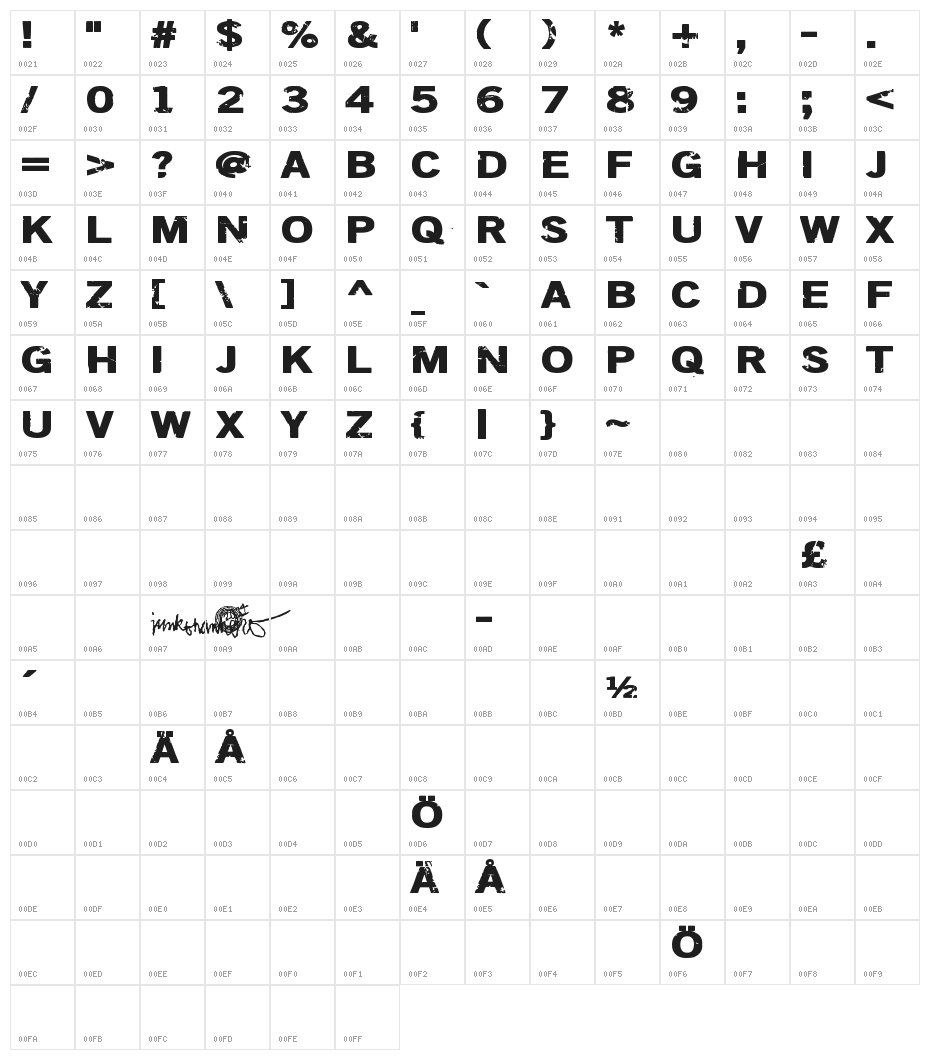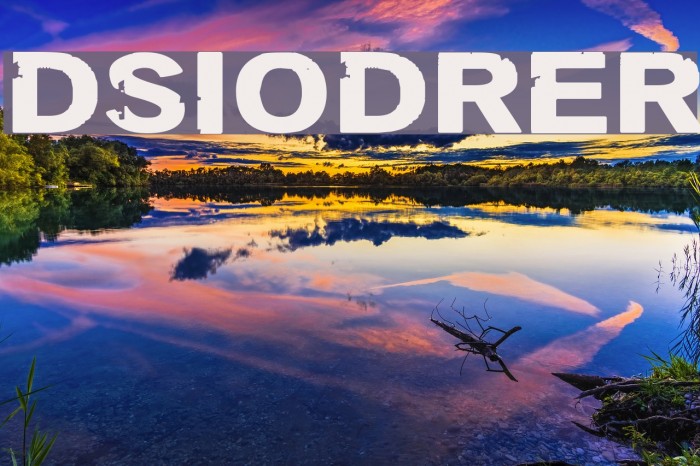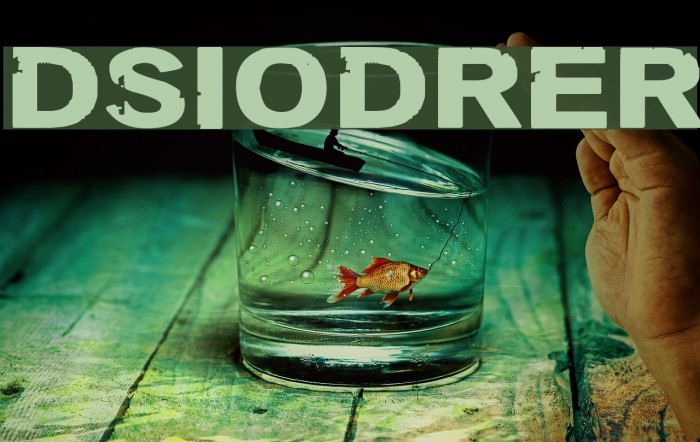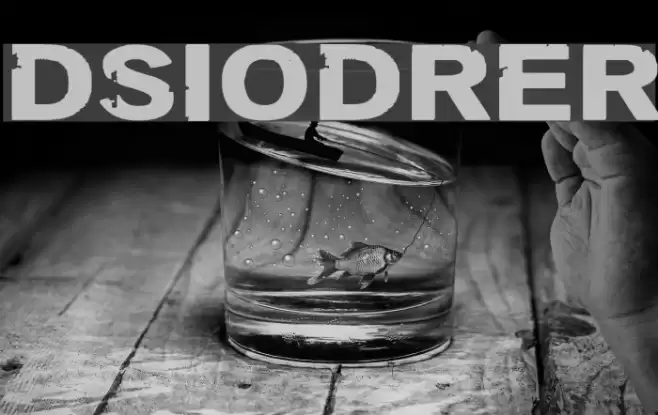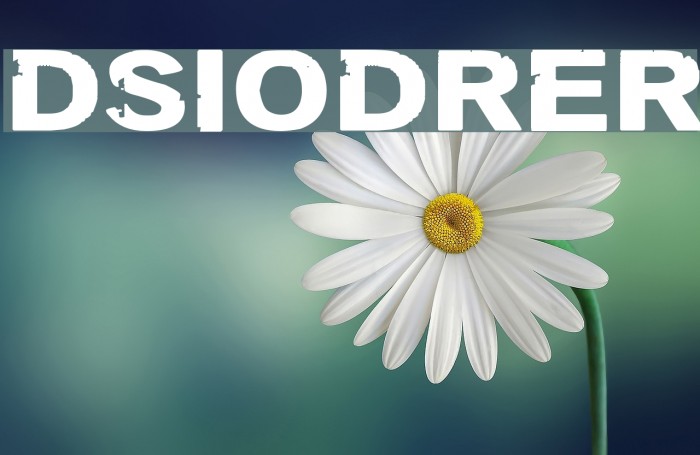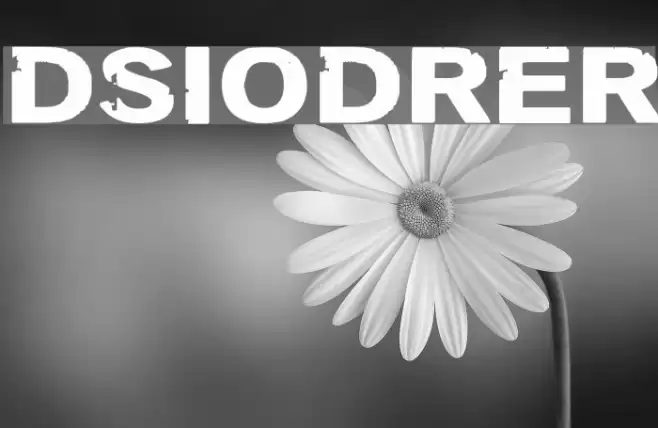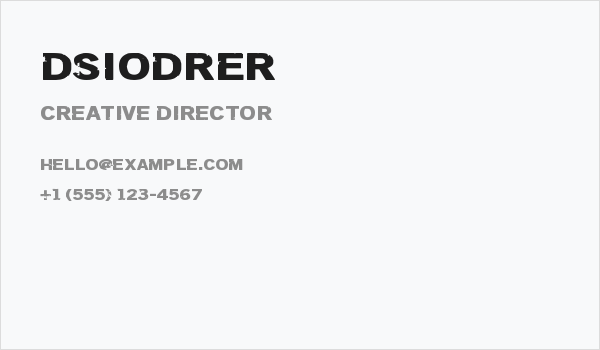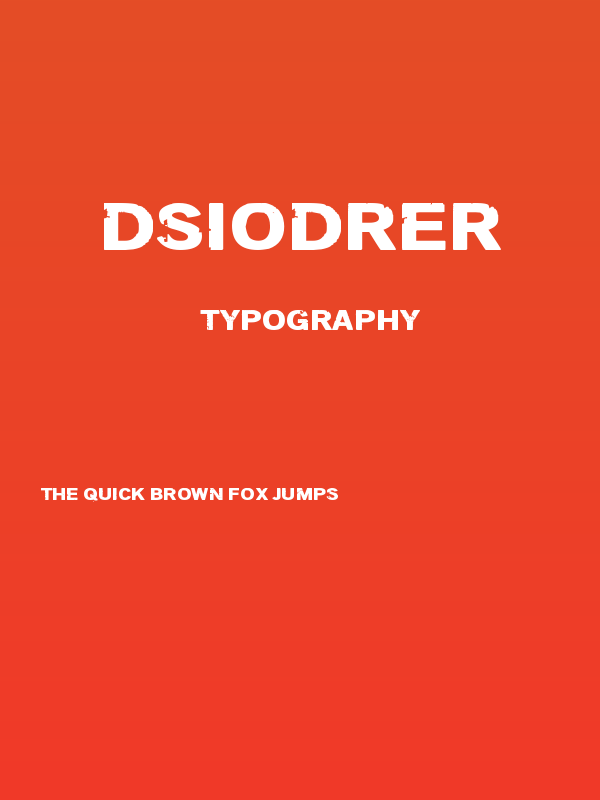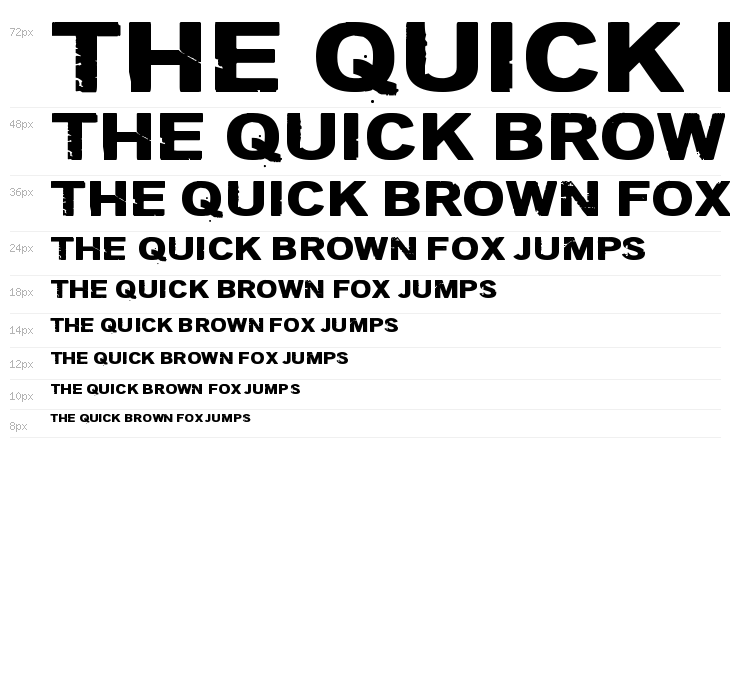
DSIODRER Font
DSIODRER Description
This font features a bold and distressed style, with a rugged texture that gives it a worn, vintage appearance. The characters are uniformly bold, with a consistent weight throughout. The distressed effect is prominent, adding a sense of age and character to the typeface. The uppercase letters are strong and impactful, making them suitable for attention-grabbing headlines. The numbers and special characters maintain the same distressed aesthetic, ensuring a cohesive look across all elements. This font is ideal for projects that require a bold, vintage, or industrial feel.
| Proposed Projects | Ideal for posters, album covers, branding for vintage or industrial-themed products, and any design requiring a bold, impactful typeface. |